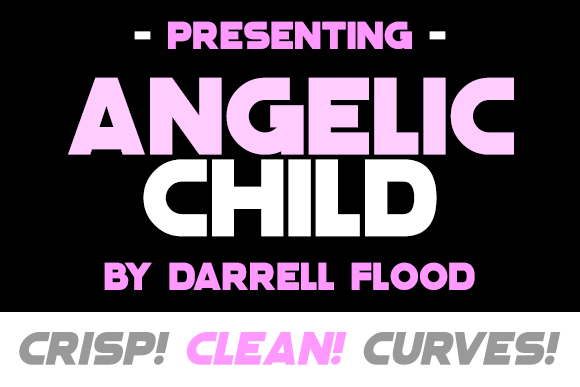
The Angelic Child Font: A Designer’s New Best Friend
I’ll never forget the time I was working on a project for a client’s children’s book. I had the illustrations, the story, and the layout all figured out, but I was stuck on one thing: the font. I wanted something that would appeal to kids, but also be clean and easy to read. That’s when I stumbled upon the Angelic Child font. It was like a breath of fresh air – clean, crisp, and full of roundy curves that just screamed “fun” and “friendliness”.
So, what do I love about the Angelic Child font? Here are a few things:
- ✨ It’s incredibly versatile – perfect for high-impact posters, titles, and even body text.
- ✅ The clean and crisp lines make it easy to read, even at smaller sizes.
- 👍 The roundy curves give it a playful and friendly feel that’s perfect for kids’ projects or designs that need a bit of whimsy.
- 🤔 Some of the letters feel a bit narrow, which can make it tricky to use for longer blocks of text.
- ⚠️ The font doesn’t have a huge range of weights, which can limit its use for certain projects.
The Story Behind Angelic Child
The Angelic Child font was designed with one goal in mind: to create a clean, crisp font that’s perfect for high-impact designs. The designer wanted to create a font that would be both fun and elegant, with a playful feel that’s perfect for kids’ projects or designs that need a bit of whimsy.
| Font Name | Angelic Child Font |
| Author | Dadiomouse |
| What is the Angelic Child font best used for? | The Angelic Child font is best used for high-impact designs, such as posters, titles, and headings. It’s perfect for designs that need a clean, crisp look with a playful feel. |
| Is the Angelic Child font suitable for body text? | While the Angelic Child font is clean and easy to read, it’s best used for shorter blocks of text. For longer blocks of text, you may want to consider a font with a bit more width and a more traditional feel. |
| Is the Angelic Child font available in multiple weights? | The Angelic Child font has a limited range of weights, but it’s still versatile enough to be used for a variety of projects. |